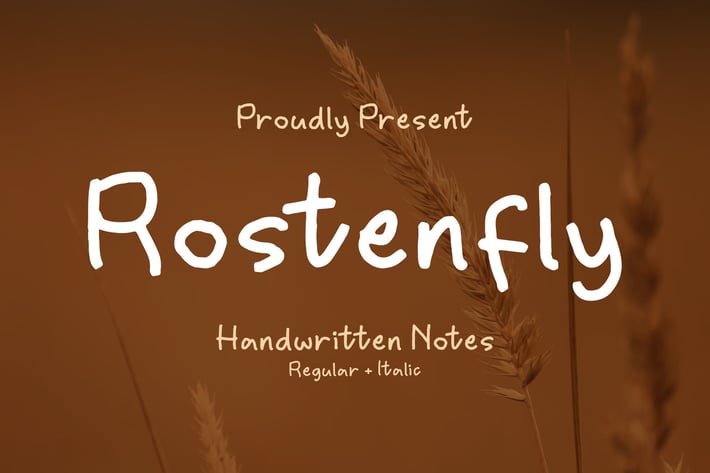
Rostenfly Handwritten Note Font
Rostenfly is a charming handwritten note font with a friendly and relaxed style. Its simple strokes and natural letter flow make it perfect for designs that aim to feel personal, warm, and approachable. With both Regular and Italic styles, Rostenfly adds a touch of authenticity to every word — just like a heartfelt handwritten message.
Natural handwritten style with smooth strokes
Includes Regular & Italic versions
Simple, legible forms suitable for digital and print
Personal notes and stationery
Posters and quote designs
Branding and logo projects
Coffee shop or lifestyle packaging
Social media posts and invitations
* Children’s books and product labels
Warm, friendly, and effortlessly personal — Rostenfly brings the charm of real handwriting to your creative projects.